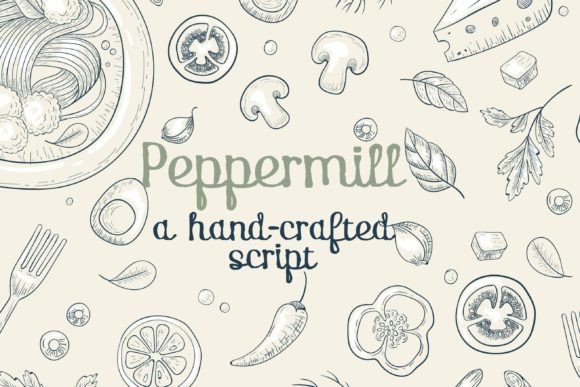
Peppermill Font
Unleash the Power of Peppermill Font: Your Gateway to Exquisite Handwritten Designs
In a world of digital monotony, where fonts often blend into a sea of sameness, Peppermill Font emerges as a breath of fresh air, a burst of creativity that will transform your designs into captivating masterpieces. This extraordinary script font, meticulously crafted by the talented designers at Illustration Ink, is not just a collection of letters; it's an invitation to embark on a journey of artistic expression.
Peppermill Font: A Symphony of Elegance and Charm
Experience the allure of Peppermill Font, a creation that evokes the warmth of handwritten notes and the charm of personal correspondence. Its enchanting curves, playful strokes, and unwavering consistency will add an unparalleled touch of elegance to your designs, drawing your audience in with their undeniable charm.
Capture the Essence of Individuality with Peppermill Font
In a world where conformity often reigns supreme, Peppermill Font stands as a defiant beacon of individuality. Whether you're crafting logos, designing posters, creating social media graphics, or simply adding a personal touch to your documents, Peppermill Font empowers you to break free from the mundane and embrace your unique style.
Ignite Your Creativity with Peppermill Font
With Peppermill Font as your creative companion, the possibilities are limitless. Dive into a world of endless design opportunities, where imagination knows no bounds. Let your creativity soar as you craft designs that resonate with authenticity, charm, and a touch of whimsy. Peppermill Font is the key to unlocking your creative potential.
Embark on a Typographic Adventure with Peppermill Font
Peppermill Font is more than just a font; it's an adventure, a journey into the realm of typography where every design tells a story. As you explore the nuances of Peppermill Font, you'll discover hidden depths of expression, unlocking new levels of creativity with each project you undertake.